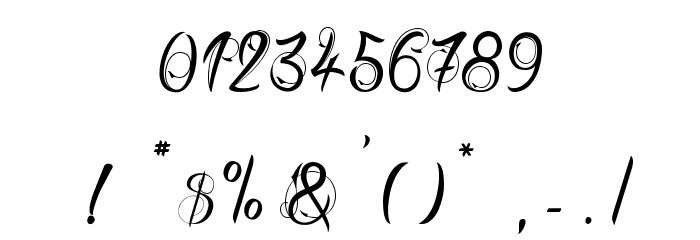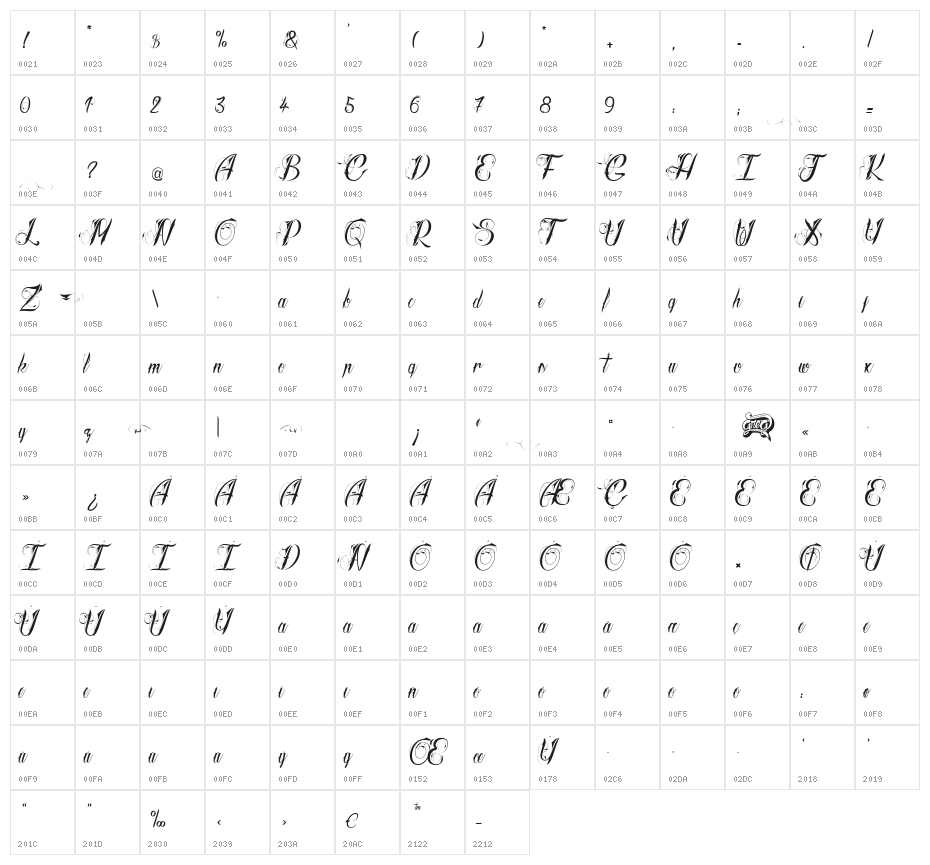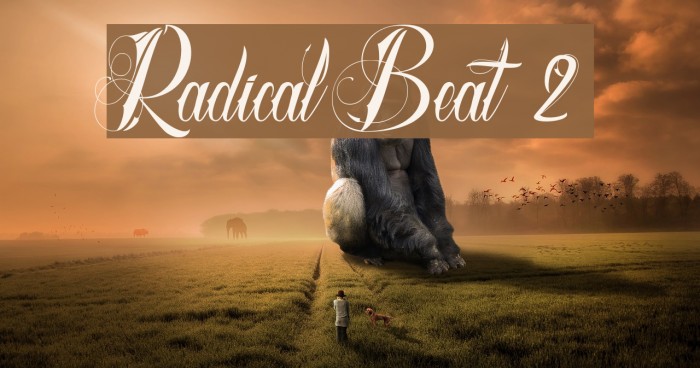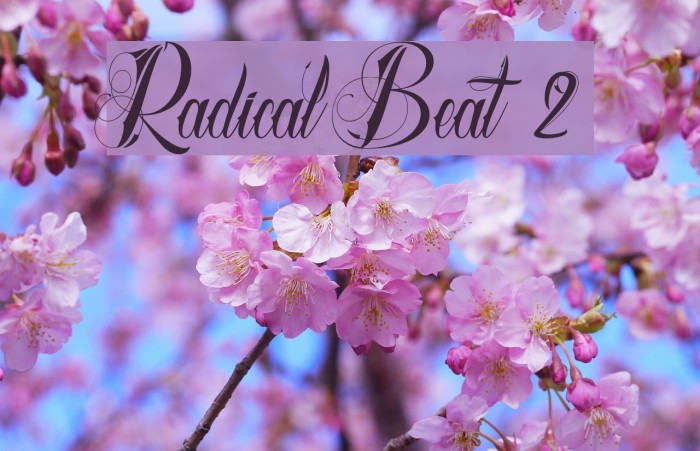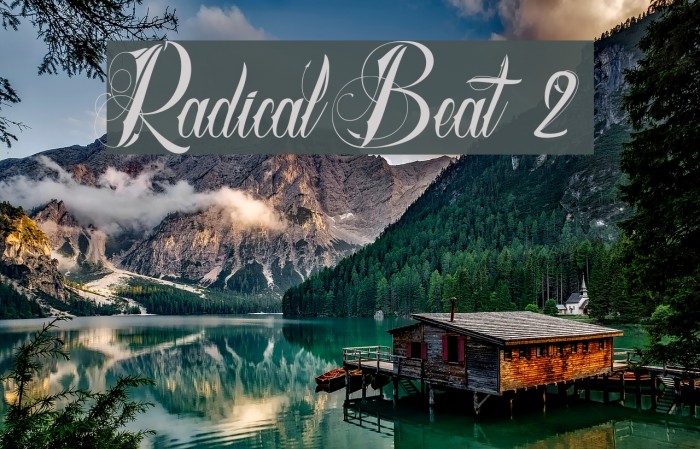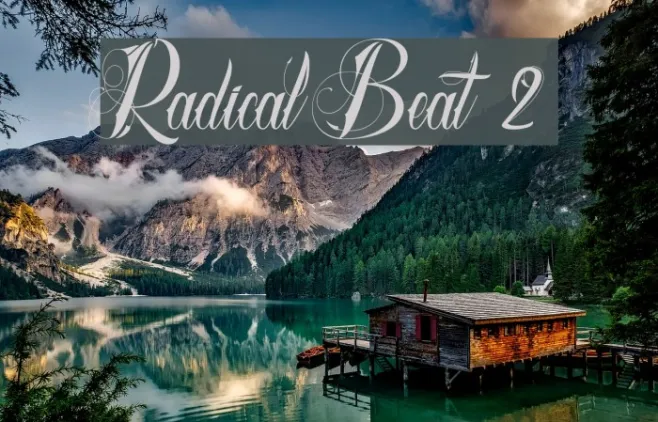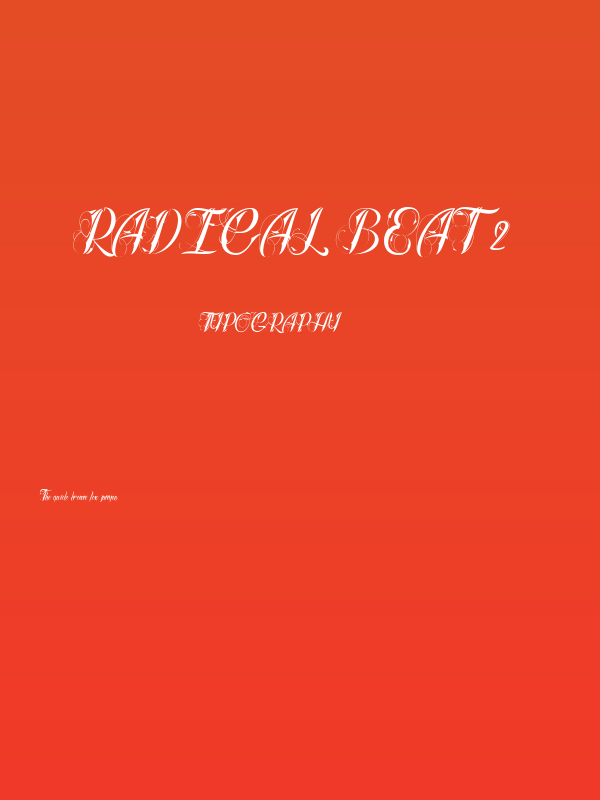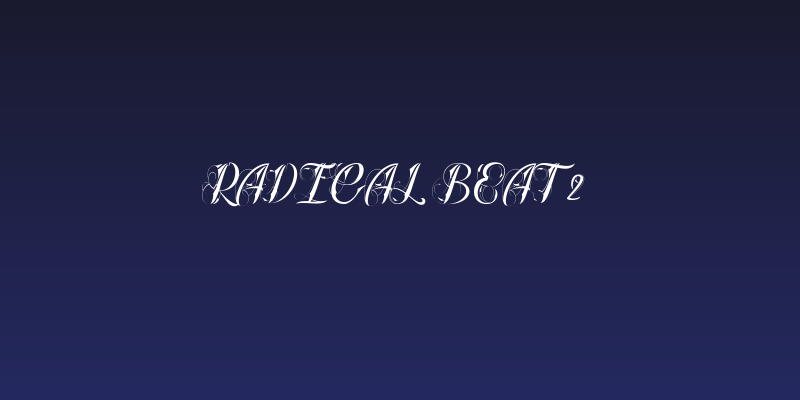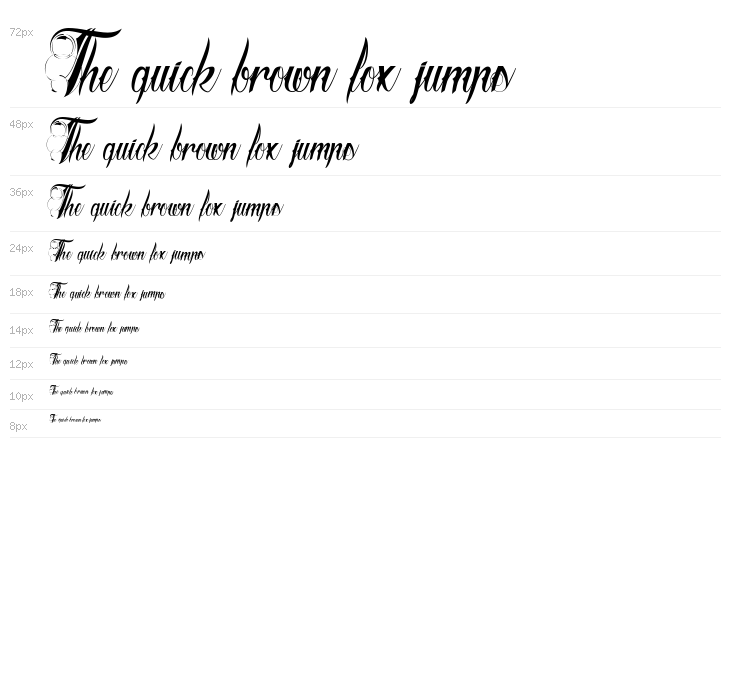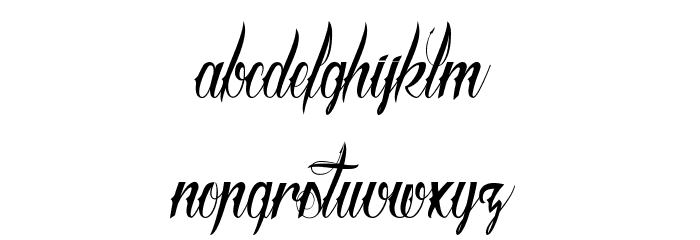
Radical Beat 2 Font
Radical Beat 2 Description
This font exudes an elegant and sophisticated style, characterized by its intricate swirls and flourishes that embellish each character. The uppercase letters are particularly ornate, with elaborate loops and curves that give them a decorative and artistic flair. The lowercase letters maintain a cursive script style, flowing smoothly with a graceful appearance. Numbers and special characters are equally adorned, ensuring a cohesive and visually appealing design throughout. This font is ideal for projects that require a touch of elegance and sophistication, such as wedding invitations, luxury branding, or high-end product packaging.
| Proposed Projects | Wedding invitations, luxury branding, high-end product packaging, decorative headings. |